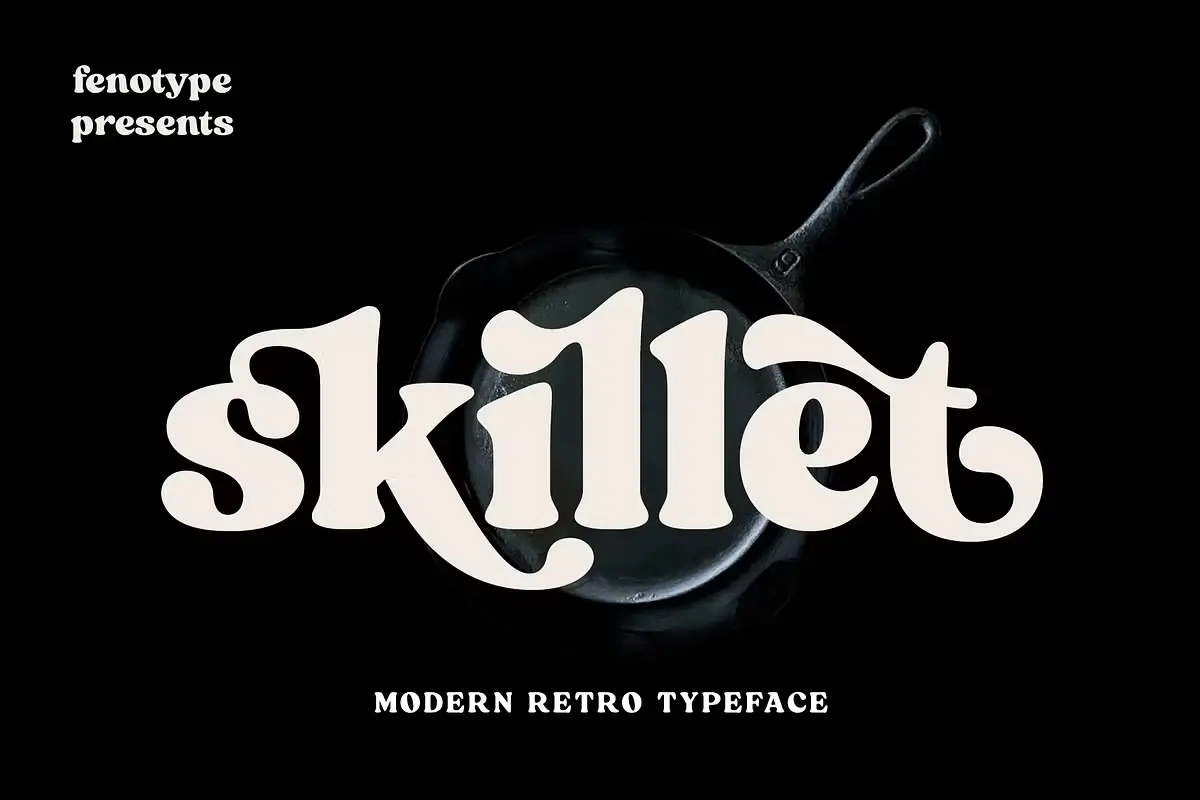
Skillet Font is a striking retro-style serif font that exudes joy and a sense of hedonism. Each stroke of its serifs radiates vintage charm, making it an excellent choice for those looking to capture a nostalgic yet sophisticated aesthetic. With its bold yet smooth design, Skillet carries a strong personality and a natural confidence that stands out in any composition. It is available in both Condensed and Regular weights, allowing designers to create a more intimate and well-balanced layout, even in large or open spaces.
Beyond its captivating appearance, Skillet offers an extensive range of OpenType features to enhance creative possibilities. For standard use, enabling Standard Ligatures ensures seamless text flow. When designing logos, headlines, or custom typography, additional features such as Discretionary Ligatures, Swash Stylistic, Titling Alternates, and Stylistic Sets provide the flexibility to craft unique and engaging text. Whether used for branding, editorial layouts, or artistic projects, Skillet delivers both charm and versatility.